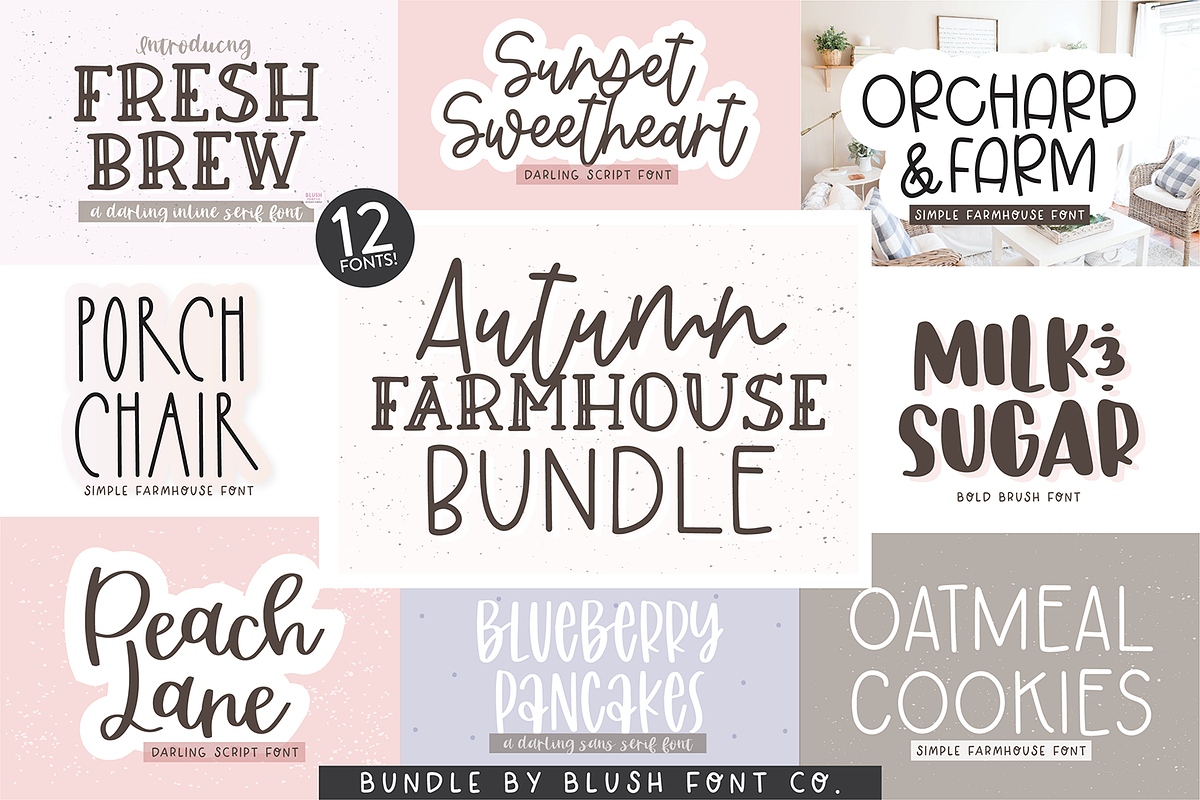
AUTUMN FARMHOUSE FONT BUNDLE Free Download
Introducing the AUTUMN FARMHOUSE FONT BUNDLE Free Download, a curated collection of charming, rustic typefaces perfect for capturing the cozy essence of autumn and farmhouse aesthetics. This bundle includes a variety of hand-lettered fonts, decorative serifs, and playful scripts that evoke the warmth and simplicity of country living. Ideal for creating seasonal designs, home décor projects, invitations, and branding materials, these fonts bring a touch of nostalgia and comfort to any creative endeavor. Download the AUTUMN FARMHOUSE FONT BUNDLE Free Download to explore its features in personal projects. For commercial use, please ensure you purchase the appropriate license. Enhance your designs with the rustic charm of the AUTUMN FARMHOUSE FONT BUNDLE Free Download